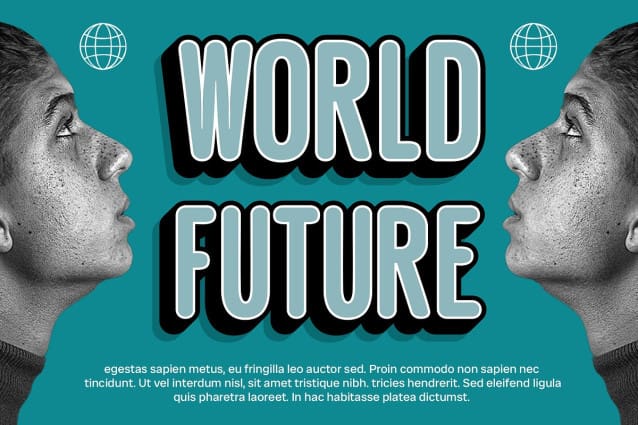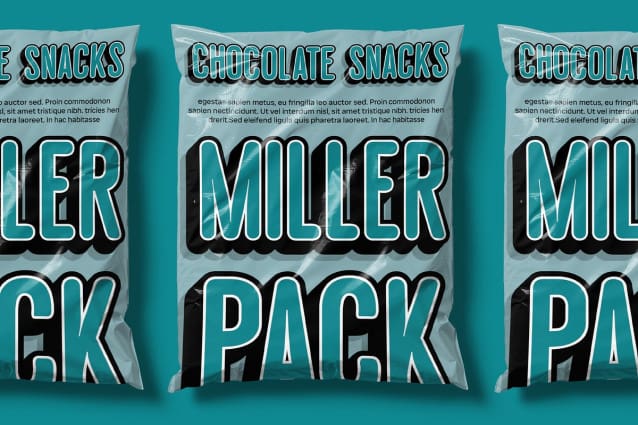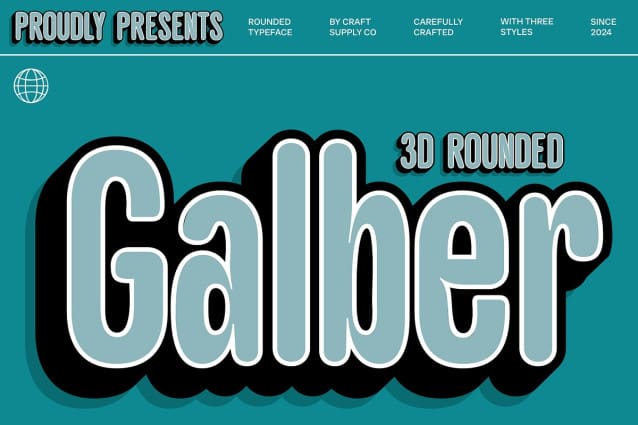
Galber Rounded 3D Font
Galber Rounded 3D Font is a modern sans-serif font that combines inktrap shapes, condensed forms, and rounded edges, all enhanced by a dynamic 3D effect. The inktrap design softens the corners, improving readability and adding a unique visual appeal.
Condensed and Space-Efficient The font’s condensed structure allows for space-efficient usage while maintaining a strong visual impact. Its streamlined design ensures that text remains clear and impactful, making it ideal for applications where space is at a premium.
Friendly Rounded Edges with 3D Depth Galber Rounded 3D features rounded edges that add a friendly and approachable touch, while the 3D effect introduces depth and visual interest. This combination creates a dynamic, engaging presence that stands out in any design.
Versatile for Modern Applications Perfect for tech branding, modern marketing materials, and standout designs, Galber Rounded 3D merges contemporary style with practical functionality. Its blend of inktrap shapes, condensed form, and rounded edges ensures it works well across various modern and professional contexts.
Enhance Your Design Elevate your projects with the unique character of Galber Rounded 3D. Its modern design, combined with its 3D effect and practical features, provides a sophisticated yet approachable font that adds depth and clarity to any design.